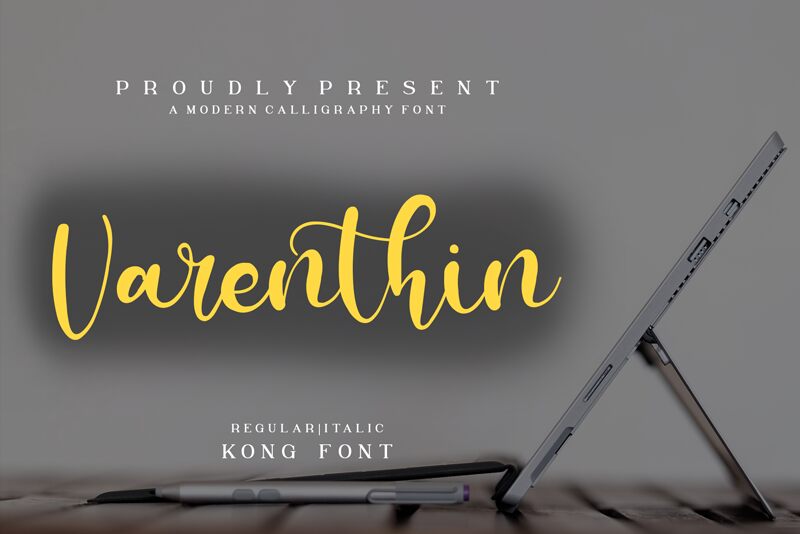
Varenthin font family by Kong Font offers a dynamic and expressive tone to elevate your text message. The calligraphic font family contains 4 font styles of flowing and warm characters to simulate natural handwriting. Enjoy the elegance of the high-quality styles executed with expert attention to detail that will suit almost all your design projects. Varenthin makes a fantastic option for headings, subheadings, body, and accent texts to grab the needed attention.